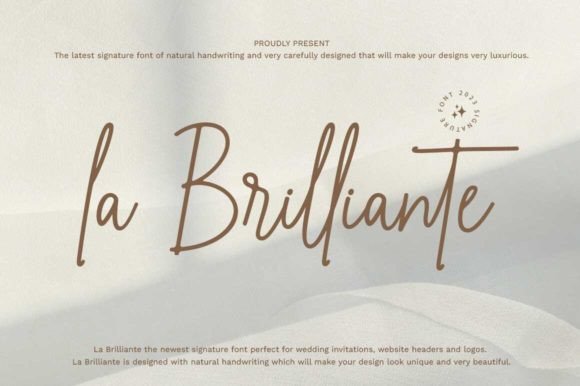
Dive into the world of elegance and sophistication with La Brilliante Font, the ultimate signature font that will transform your creative projects into masterpieces. Crafted with meticulous attention to detail, La Brilliante embodies the essence of timeless beauty, capturing the charm of handwritten strokes with its fluid and graceful lines.
As a script font, La Brilliante exudes a captivating personality that adds a touch of warmth and individuality to your designs. Its carefully designed characters dance across the page, creating a visual symphony that commands attention. Whether you're crafting wedding invitations, designing logos, or creating website headers, La Brilliante will elevate your work to new heights.
With its versatile nature, La Brilliante adapts effortlessly to a wide range of styles and aesthetics. Its inherent elegance shines through in formal settings, adding a touch of refinement to wedding stationery and invitations. In a more relaxed context, La Brilliante brings a whimsical charm to personal branding, social media graphics, and lifestyle content.
Unleash your creativity and let La Brilliante guide you on a journey of artistic exploration. Its intuitive design makes it easy to use, ensuring a seamless and enjoyable experience. As you experiment with different letter combinations and arrangements, you'll discover the endless possibilities that await you with this remarkable font.
Embrace the allure of La Brilliante Font and elevate your designs to the next level. With its enchanting charm and versatility, La Brilliante is the perfect choice for those seeking to make a lasting impression. Dive into the world of La Brilliante today and let your creativity soar.